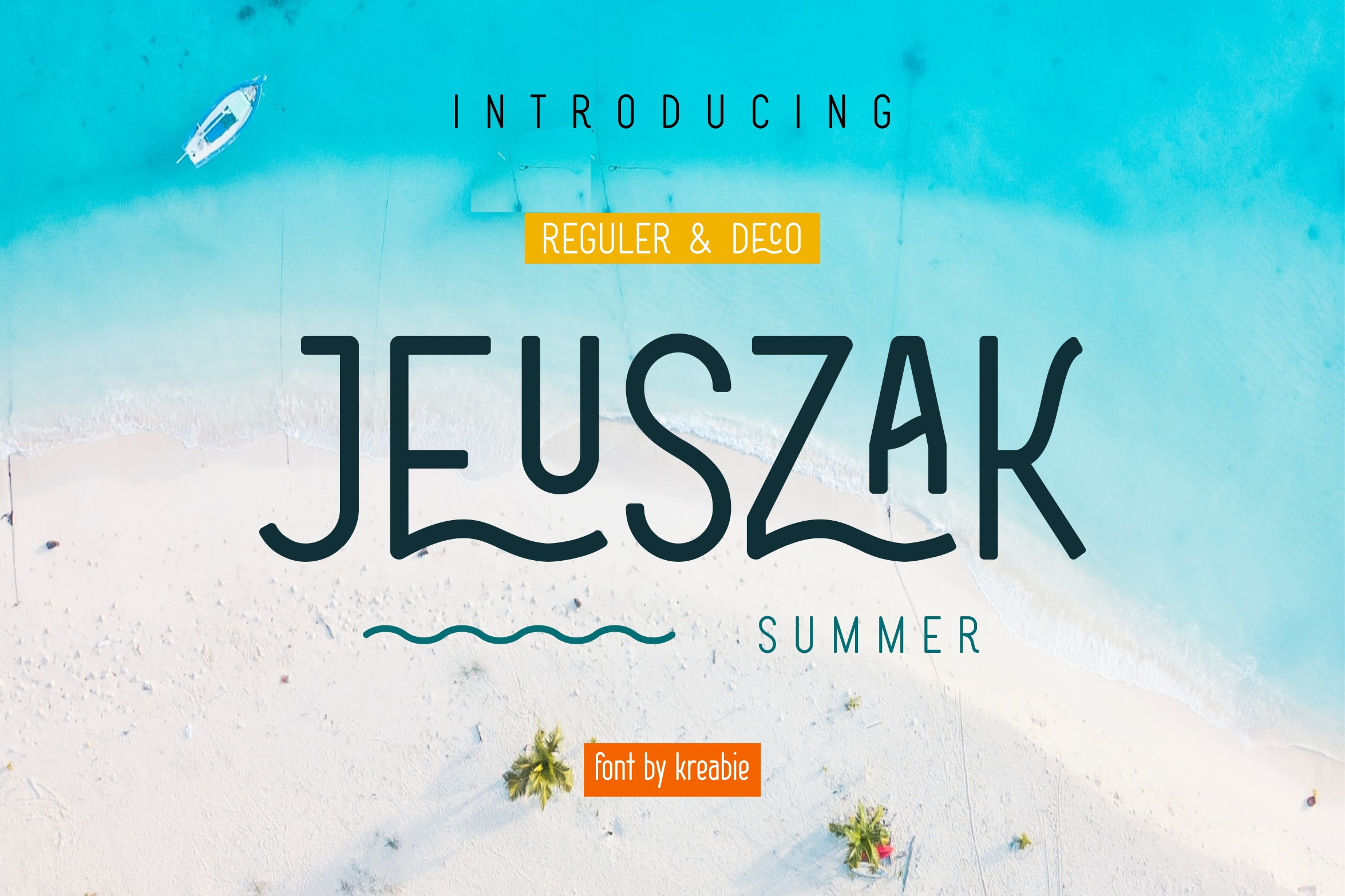
JEUSZAK FONT
JEUSZAK
Jeuszak Its unique and light style makes it stand out from other fonts, making it perfect for anyone who wants to make a statement.,The font is suitable to use for many occasion such as shop, fashion, restaurantt, hotel, movie title, brand, and many more.
- Reguler & Deco